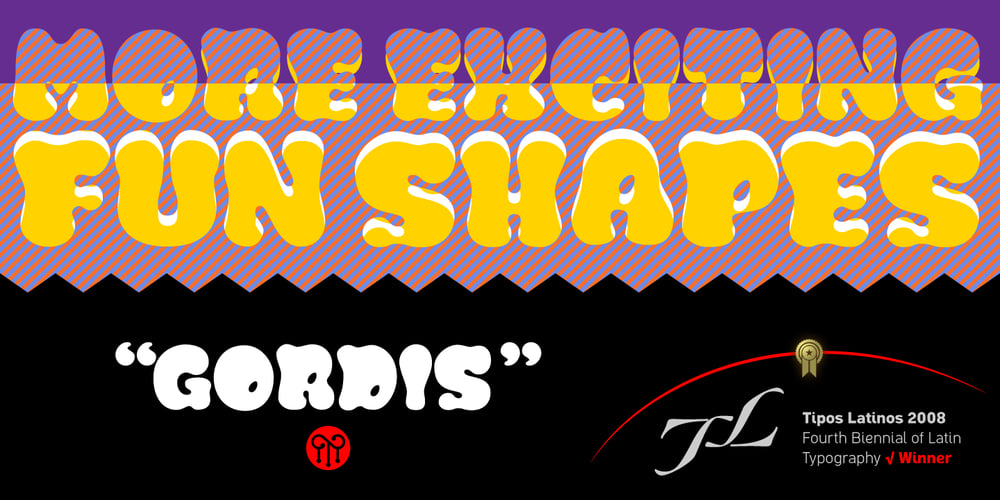
Gordis Font Family was designed by John Moore and published by John Moore Type Foundry. Gordis contains 6 styles and family package options. Gordis is a letter to display ideal for situations humorous and tender, based on rounded shapes that weigh about their weight. It comes in three versions combined Open Type, which can be used in layers for special effects. Gordis was awarded at the third biennial TL08 Tipos Latinos. Put an end to those boring headlines, use Gordis!